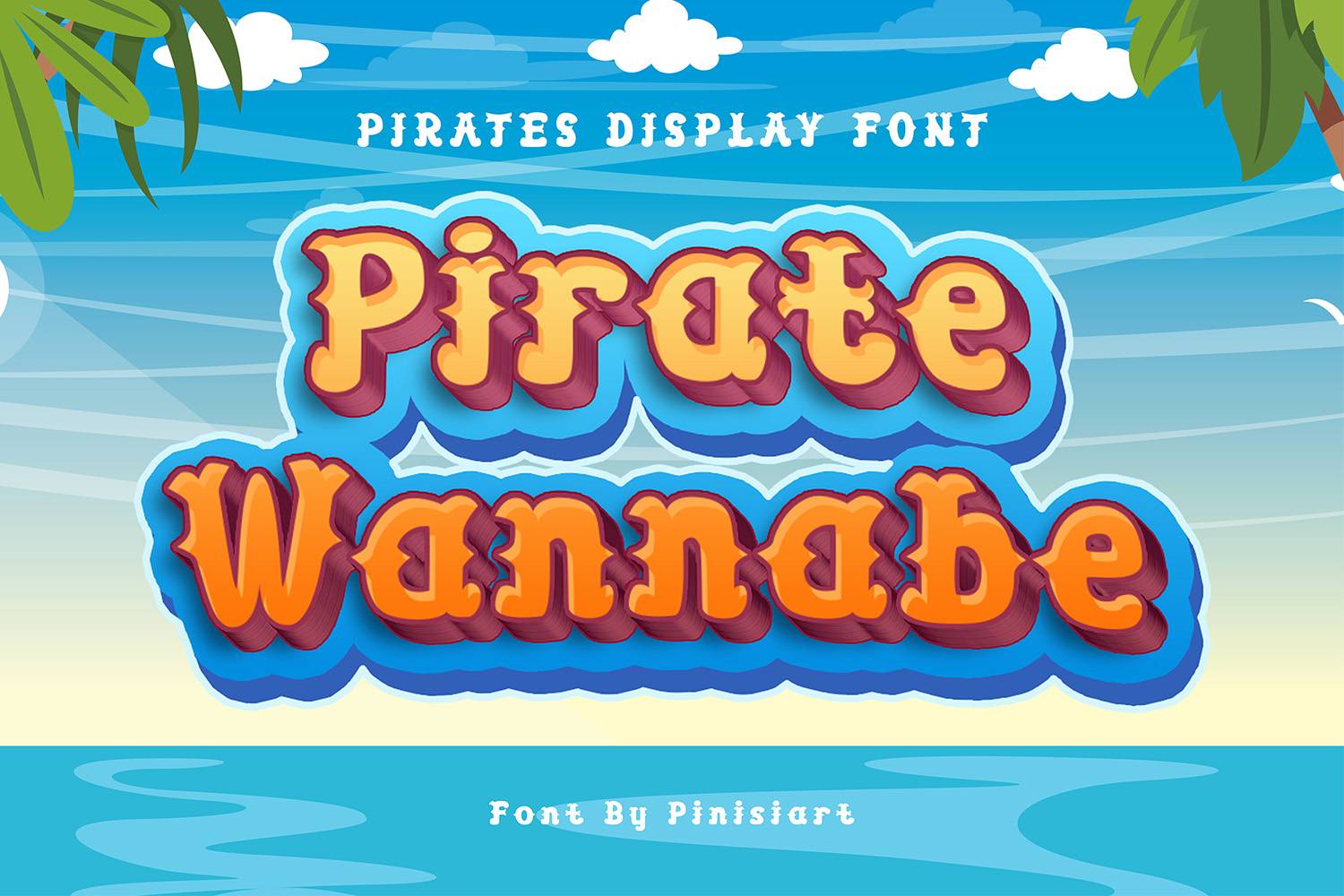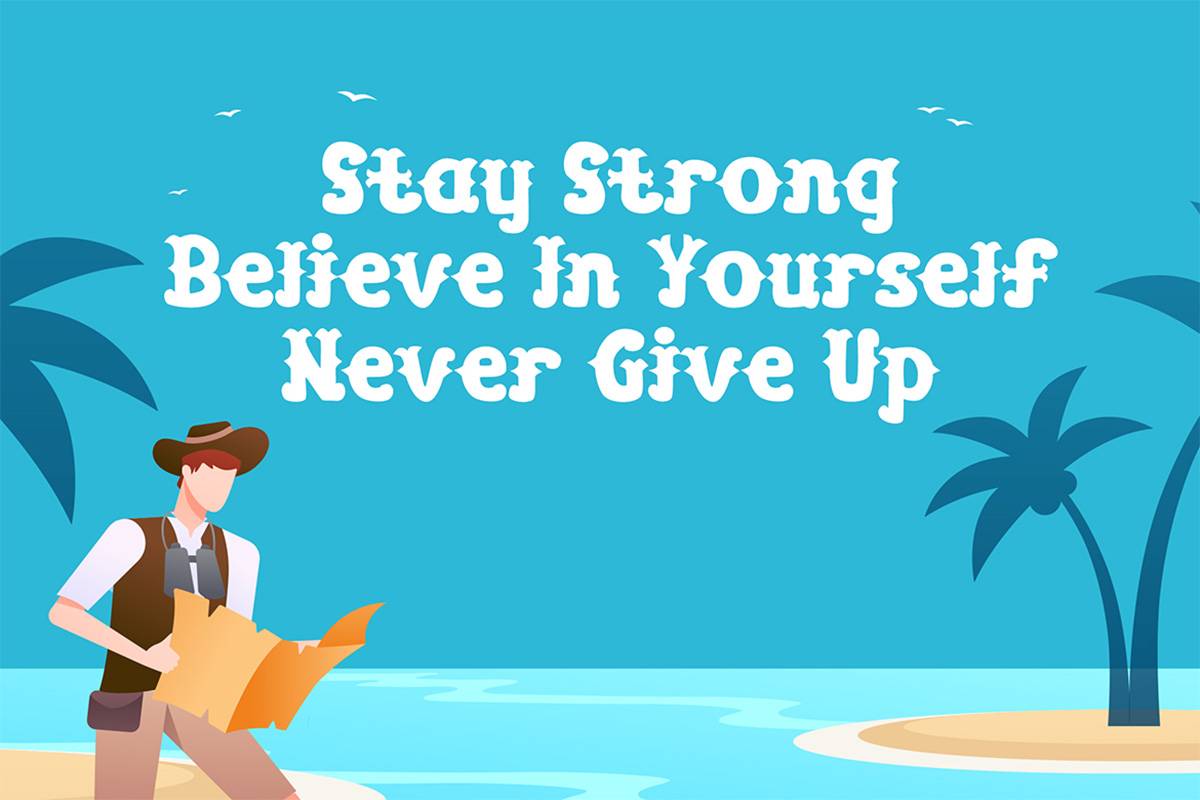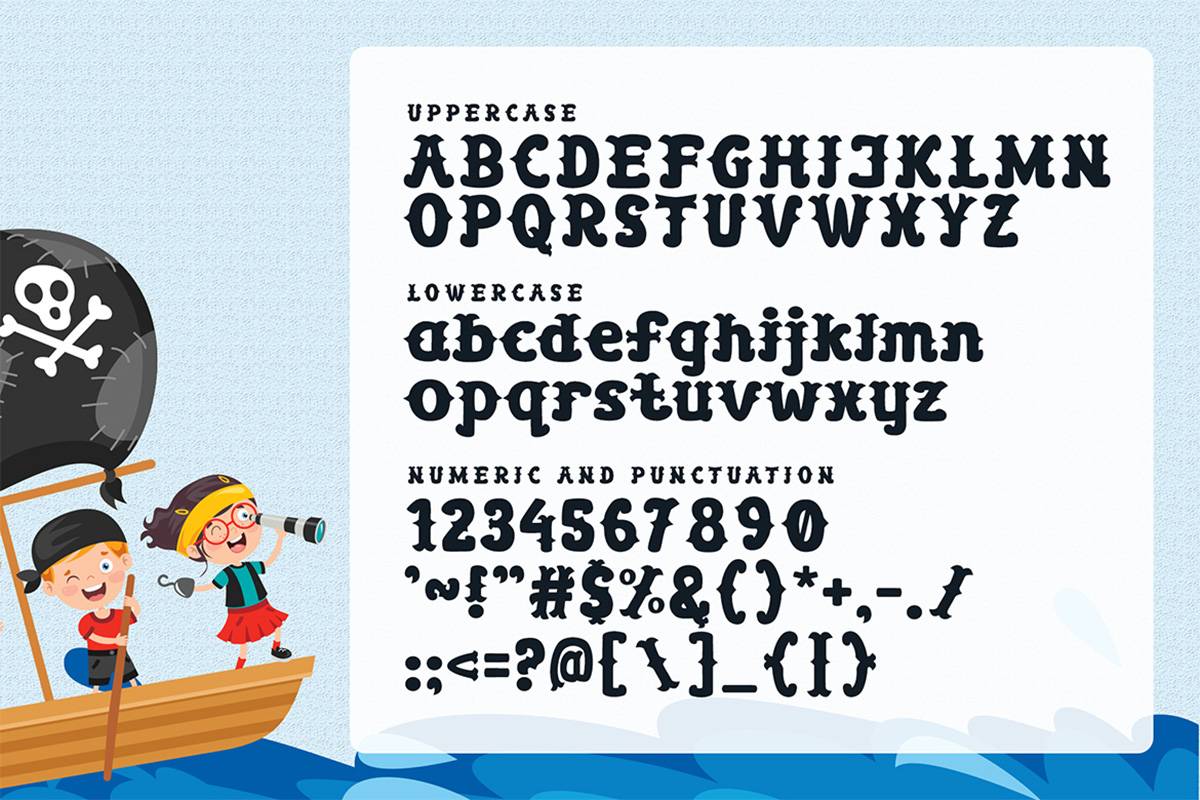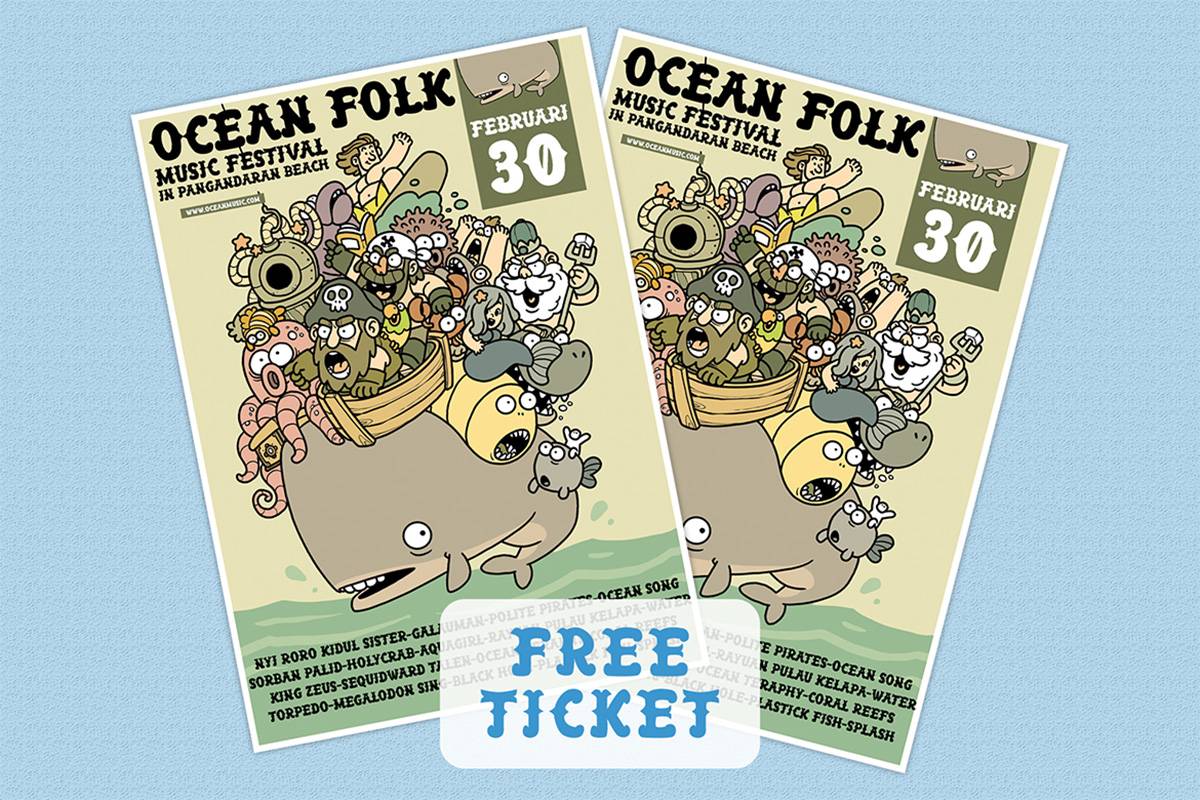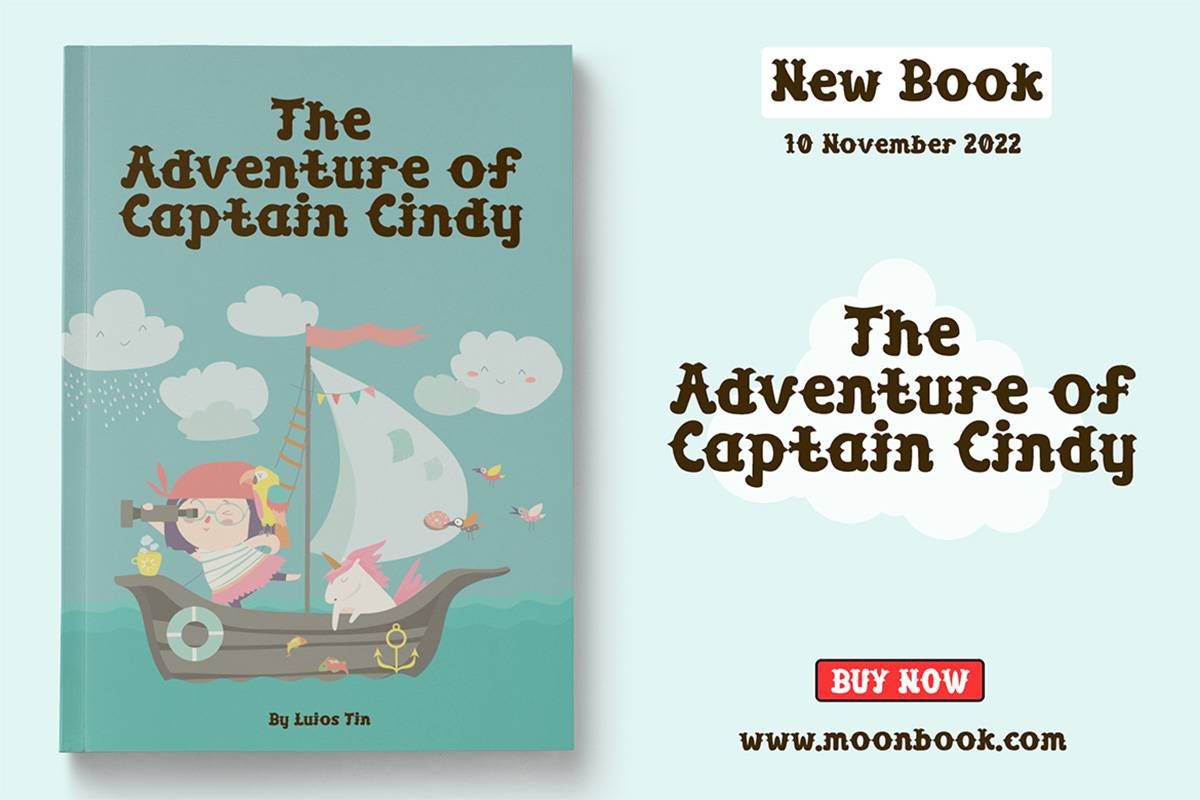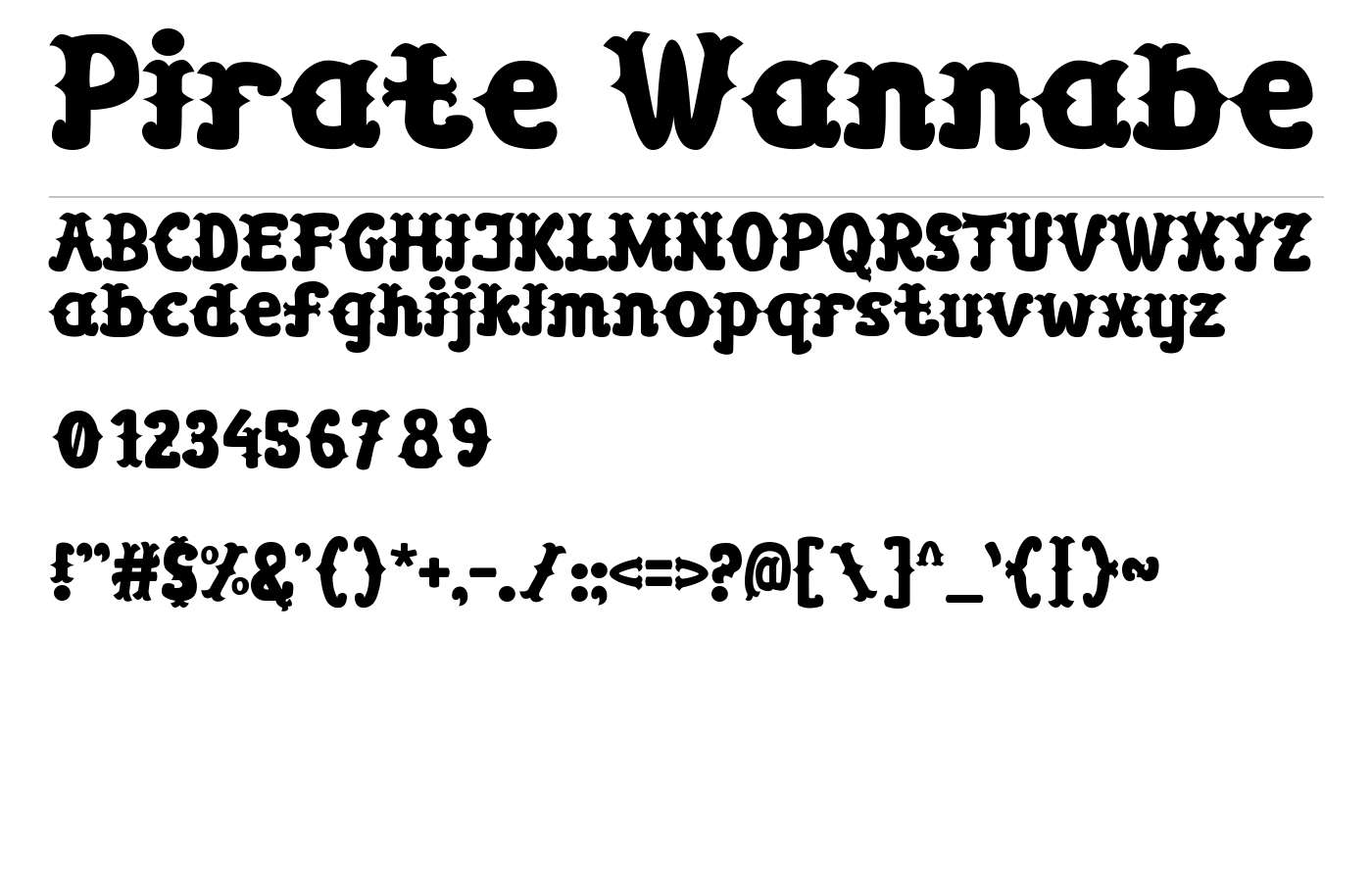
Pirate Wannabe is a bold, playful serif font with a vintage, whimsical style that evokes a pirate-themed or old-world charm. Its chunky letterforms and unique, slightly uneven serifs create a friendly yet adventurous feel, making it ideal for themed posters, logos, and creative projects seeking a fun, historic touch. This font works best in display settings where its distinctive character can shine and add personality.
Pirate Wannabe Font
About Pirate Wannabe Font
| Font family | Pirate Wannabe Font |
| Release date | 2022-05-06 |
| Designer | PINISIART Team |